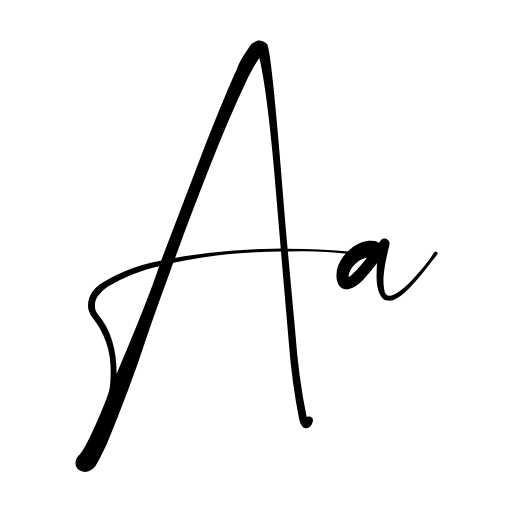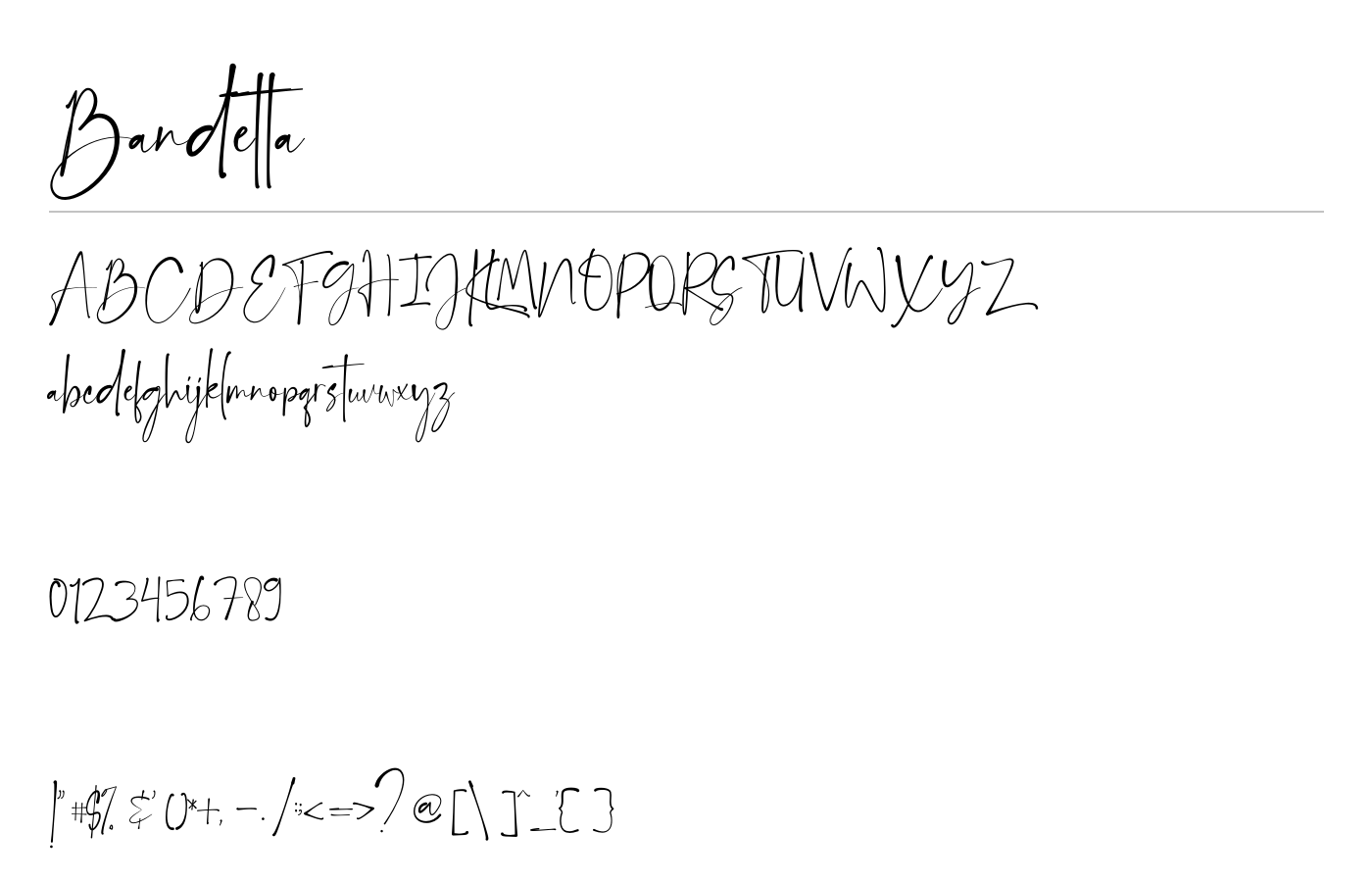
Bandetta is a delicate and modern handwritten script font characterized by its slender, elegant strokes and natural, flowing style. It features tall, narrow letterforms with a casual yet refined personality, making it perfect for creative branding, invitations, and stylish editorial use where a personal, artistic touch is desired. This font’s light weight and airy appearance lend a subtle sophistication, ideal for projects seeking a graceful and approachable feel.
Bandetta Font
About Bandetta Font
| Font family | Bandetta Font |